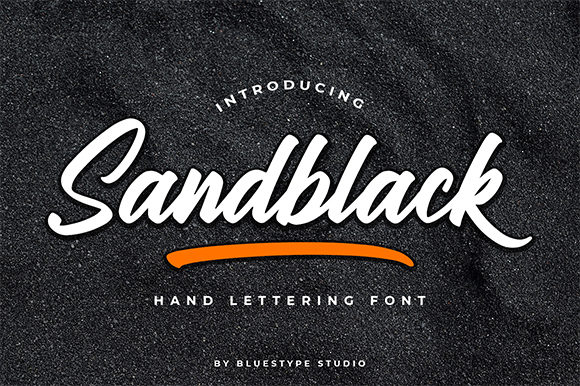
Step into the realm of captivating typography with Sandblack Font, a script font family that exudes both casual grace and timeless elegance. Crafted by the skilled hands of Bluestype Studio, Sandblack promises to elevate your design projects to new heights.
With its effortlessly flowing lines and delicate curves, Sandblack captures the essence of sophistication and charm. Whether you're a seasoned designer seeking to add a touch of individuality to your creations or a passionate crafter yearning for a font that matches your creative vision, Sandblack stands ready to fulfill your desires.
Experience the versatility of Sandblack as it effortlessly adapts to a myriad of design endeavors. From branding projects that demand a distinctive identity to headings that command attention, Sandblack rises to every challenge with unwavering grace. Create wedding designs that radiate romance, craft invitations that exude elegance, and design signatures that leave a lasting impression.
Envision logos that embody sophistication, labels that exude charm, and countless other projects that come alive with Sandblack's enchanting presence. Let your creativity know no bounds as you explore the endless possibilities that await you.
Sandblack is not just a font; it's a gateway to a world of captivating designs. It's an invitation to embark on a creative journey where your imagination takes center stage. Embrace the allure of Sandblack and watch as your projects transform into masterpieces that captivate and inspire.